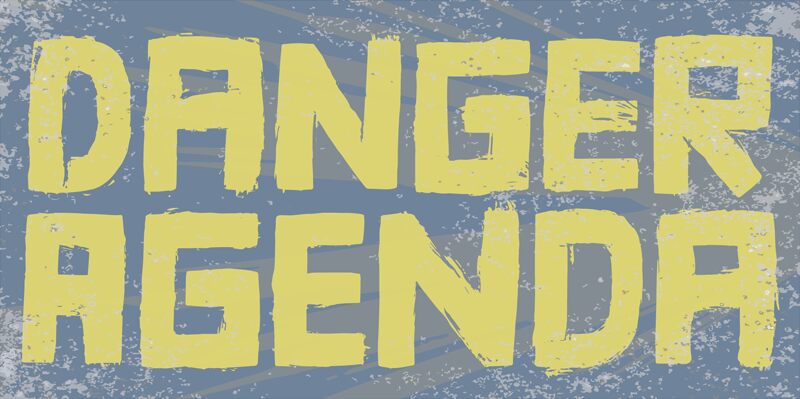
Danger Agenda DEMO Regular
Danger Agenda by Pizzadude stands out as an eroded display font that embodies the rebellious spirit of punk, the raw edge of grunge, and the enduring culture of skateboarding and graffiti. Crafted with a semi-light weight and semi-expanded width, its unique texture speaks to creative souls looking for a typeface that breaks free from the squeaky-clean norms.
Perfect for projects that demand a voice with attitude, Danger Agenda's distinctive eroded style ensures your message won't just be seen—it'll be felt. Whether it's for concert posters, edgy apparel designs, or eye-catching social media graphics, this font dares designers to embrace their bold side. Let Danger Agenda infuse your work with the essence of late-night inspirations and street-style wisdom; after all, as Pizzadude says: “Punk is not dead, grunge is not dread...”